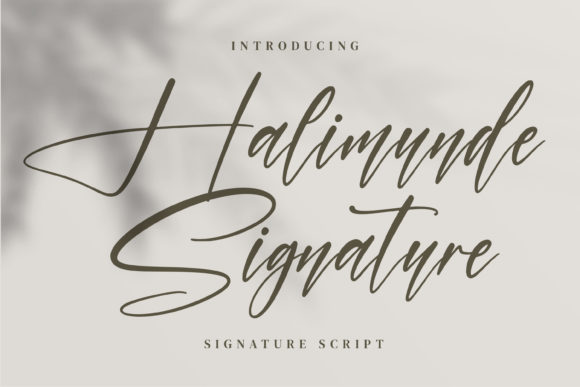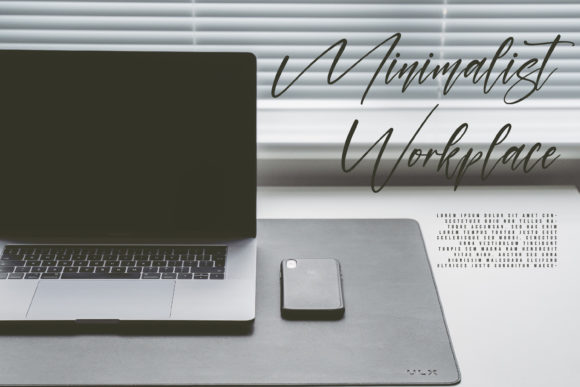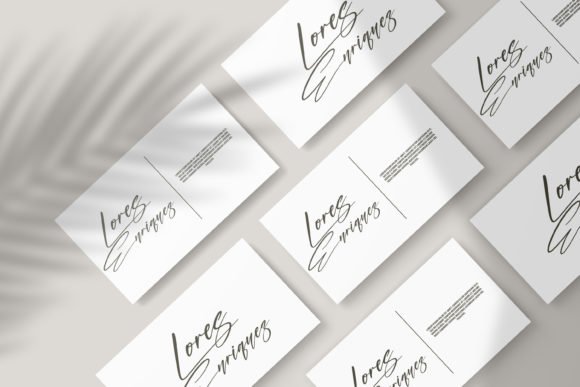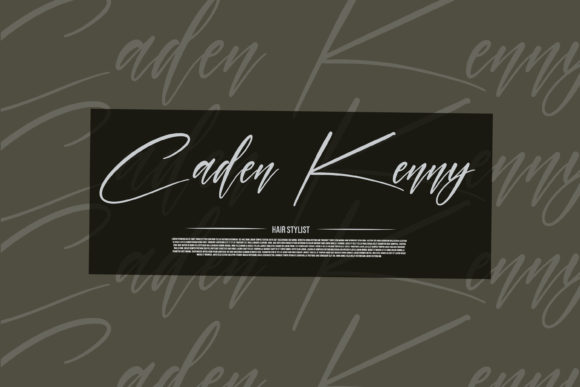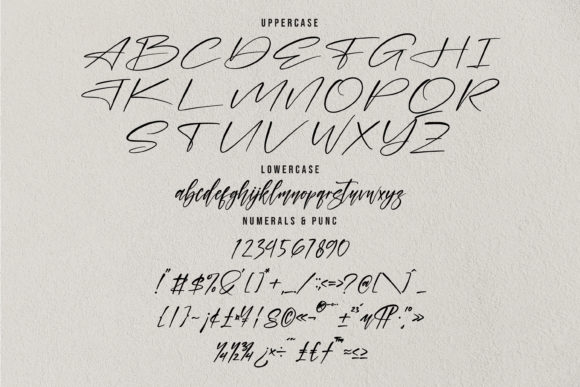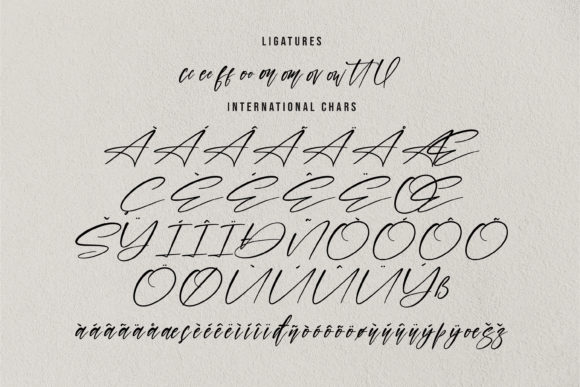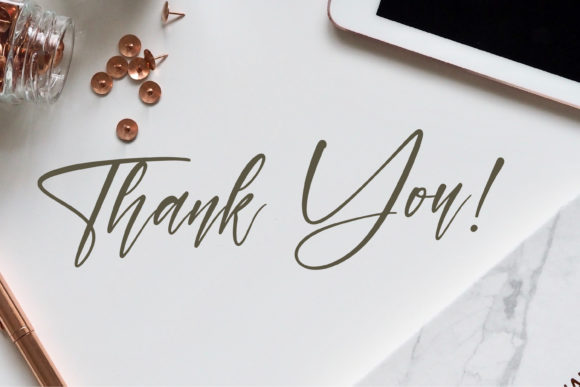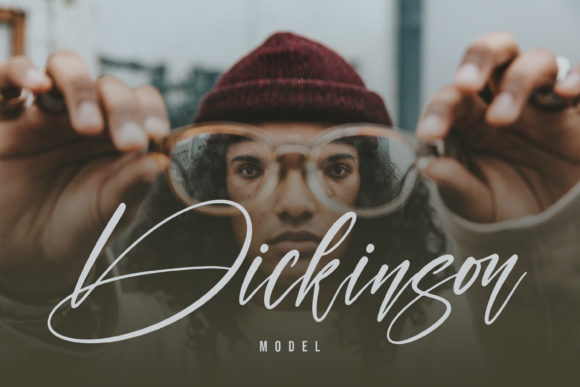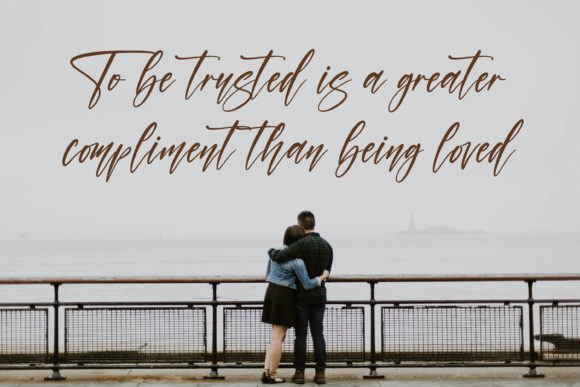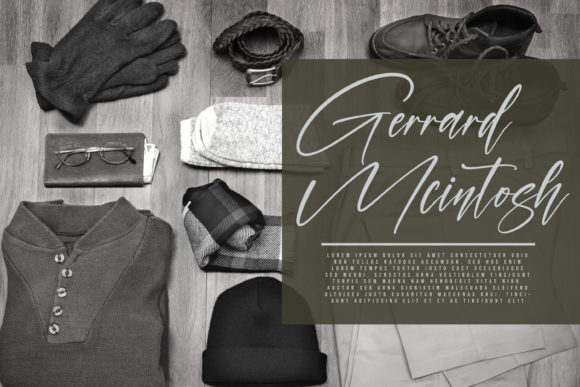
Halimunde Signature Font
About Halimunde Signature Font
Halimunde Signature is a classic handwritten font. Fall in love with its incredibly versatile style and use it to create gorgeous wedding invitations, beautiful stationary art, eye-catching social media posts, and much more!